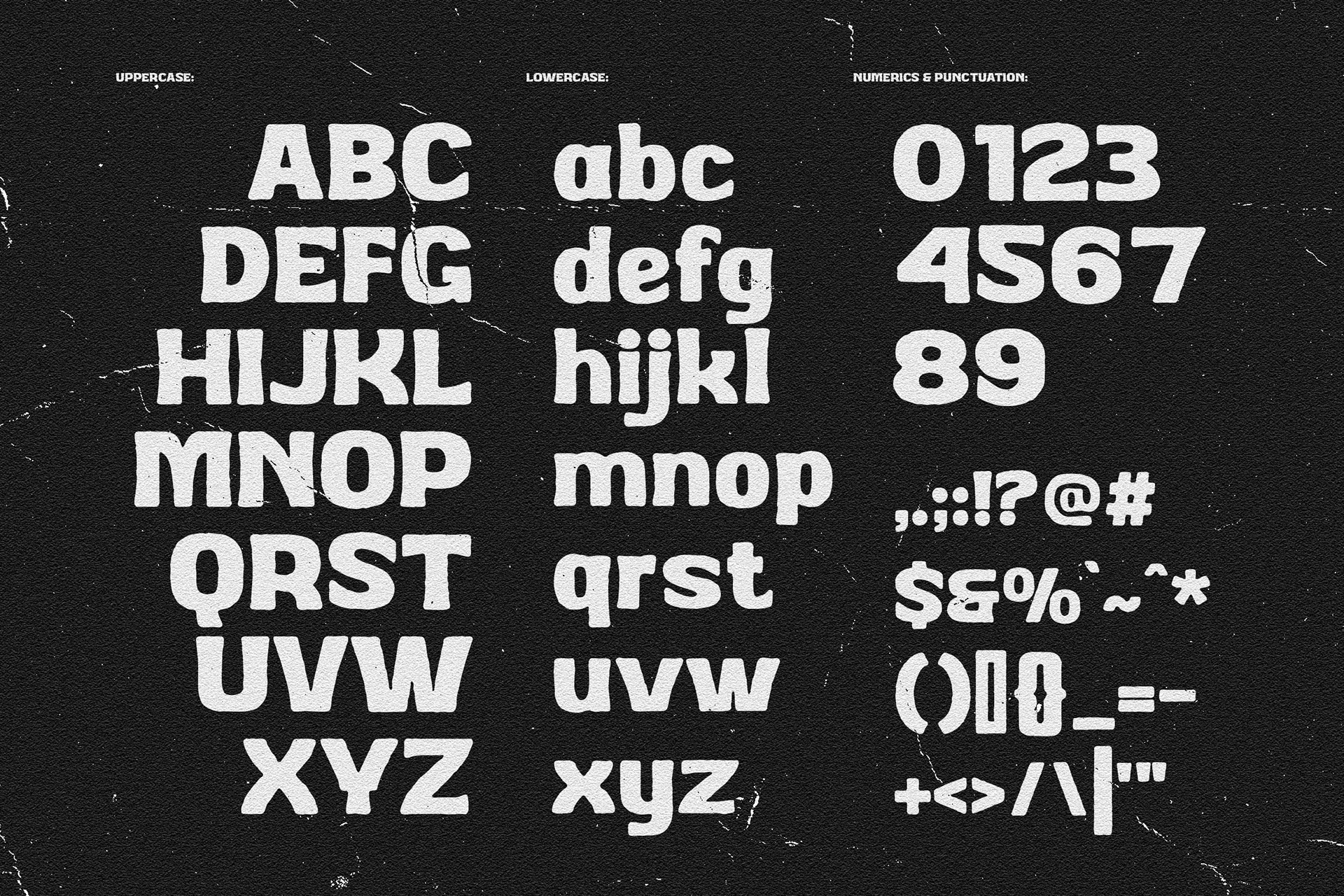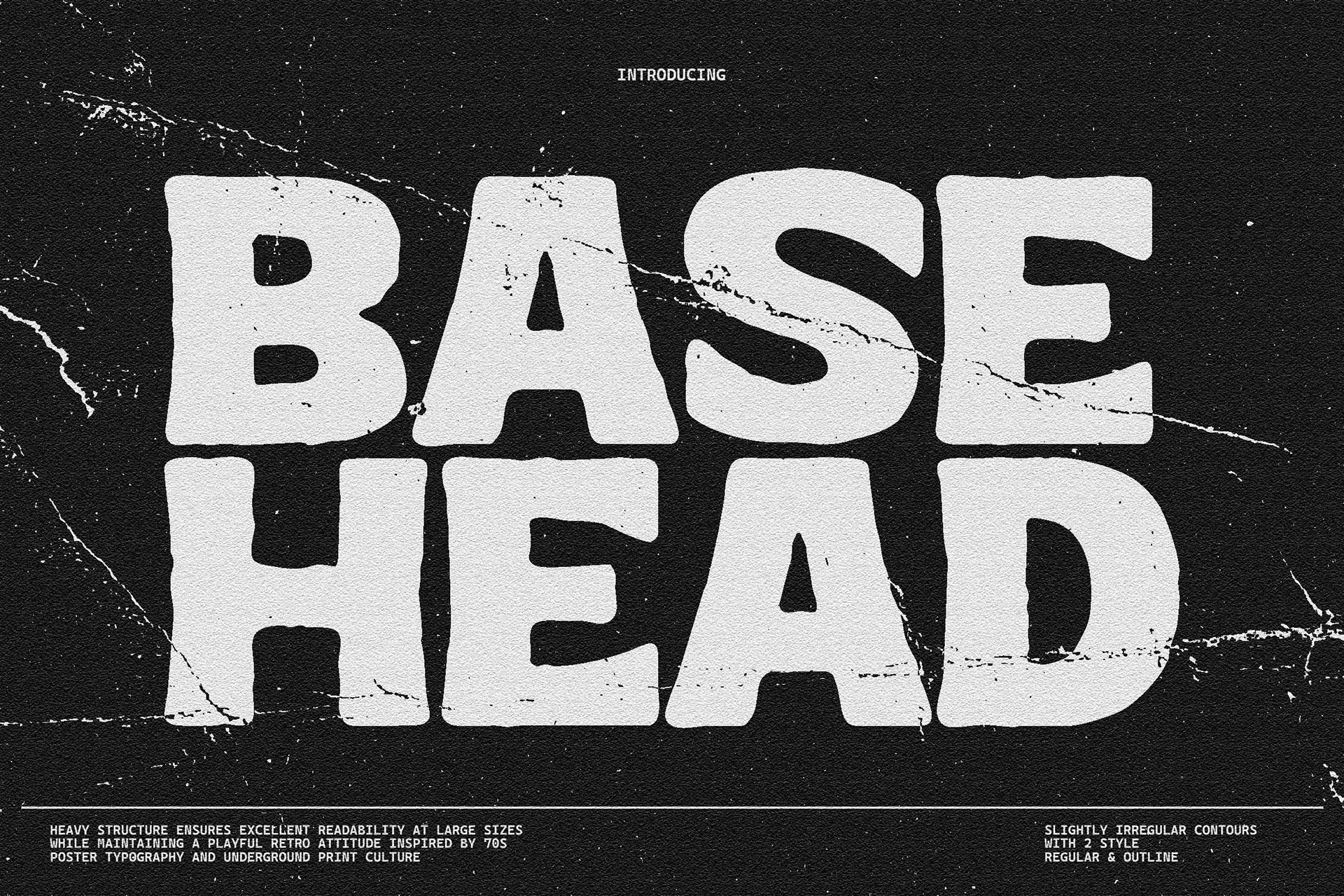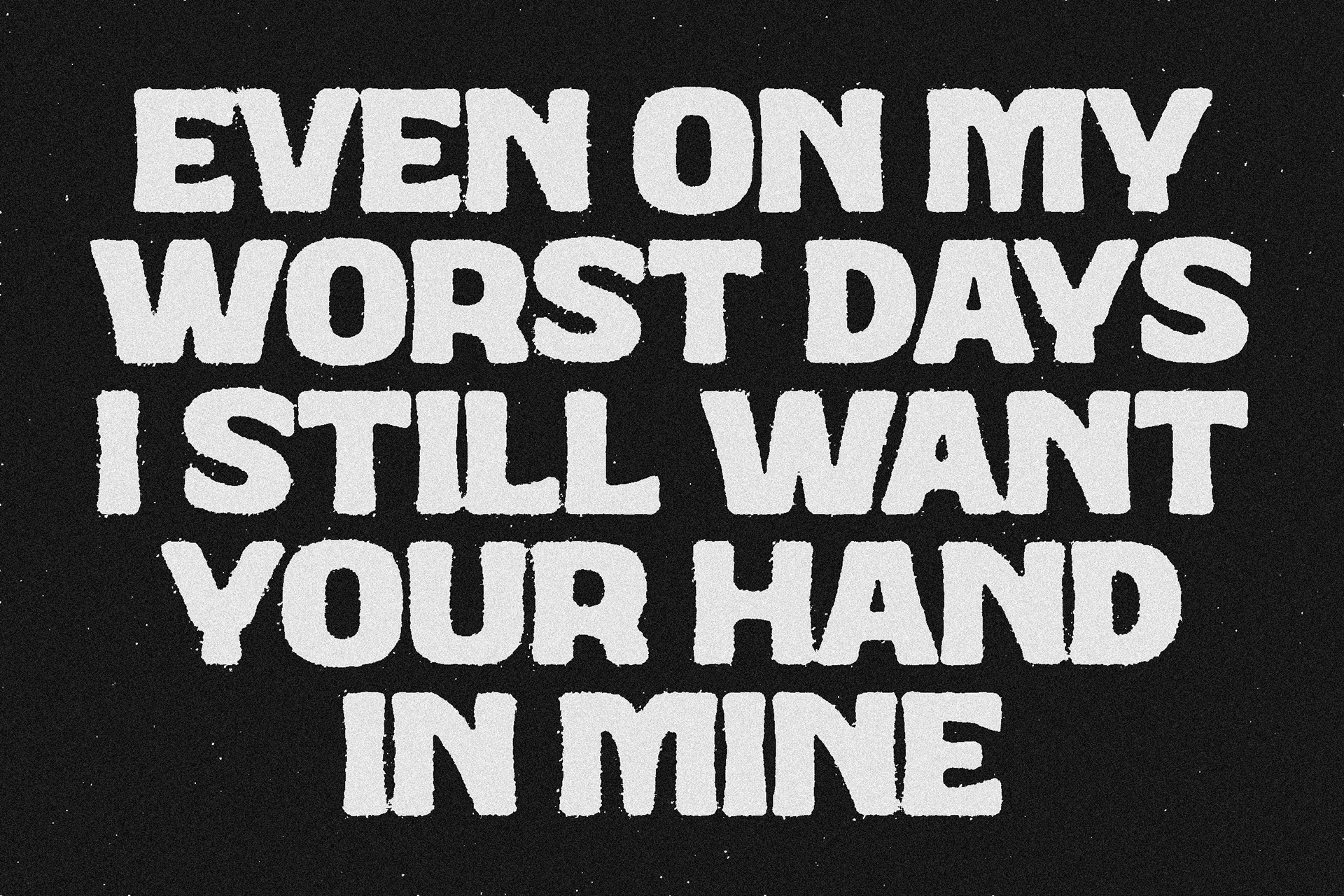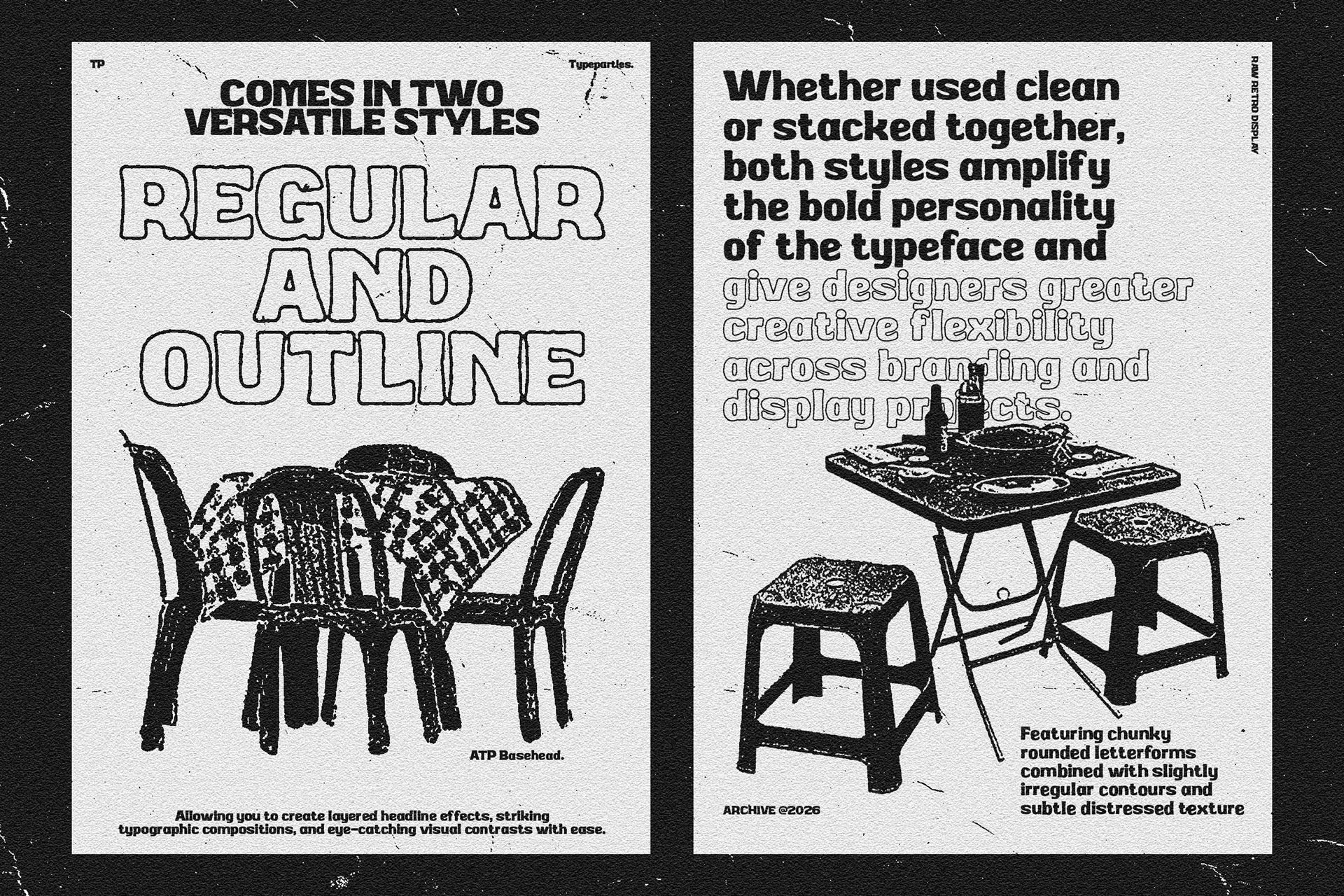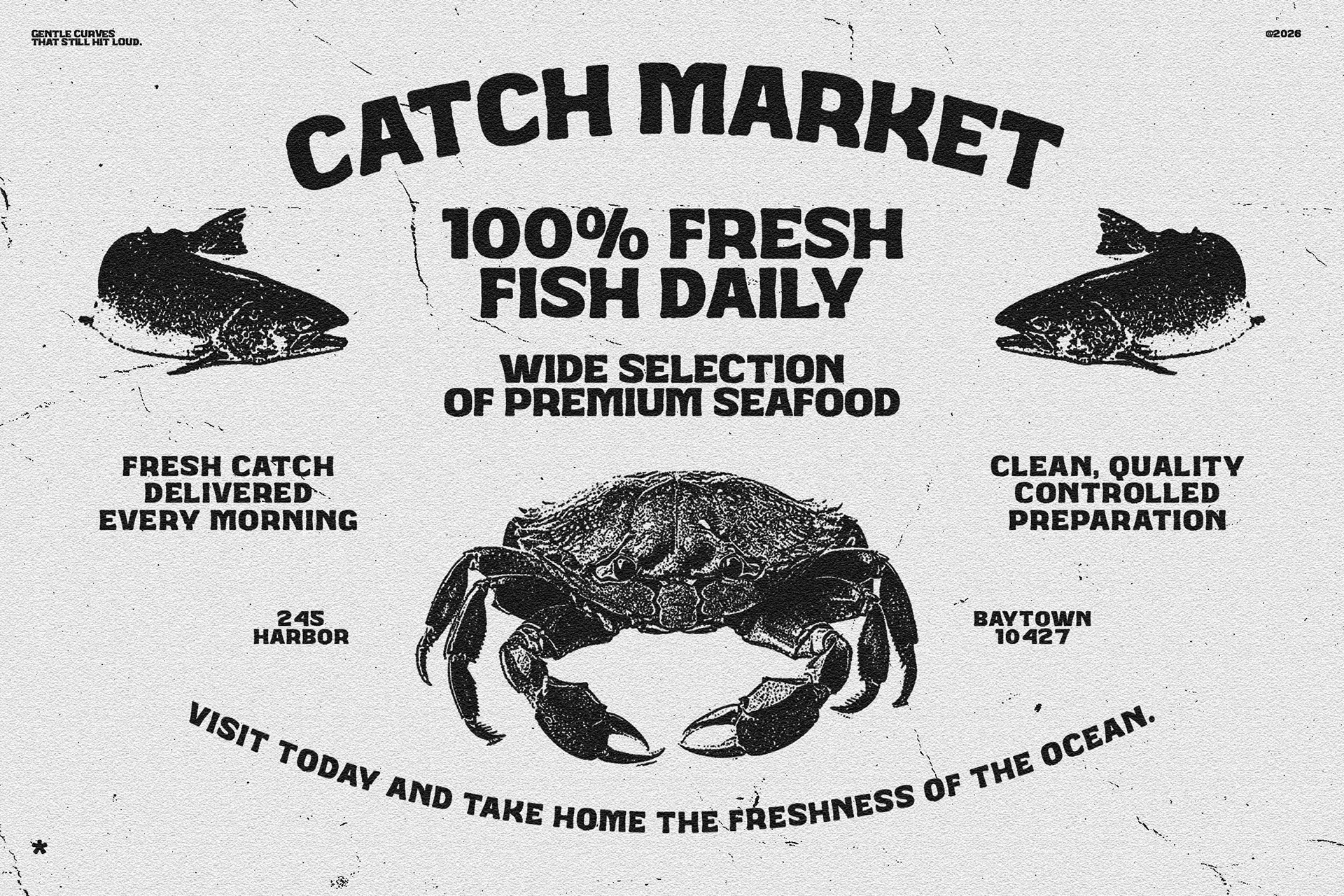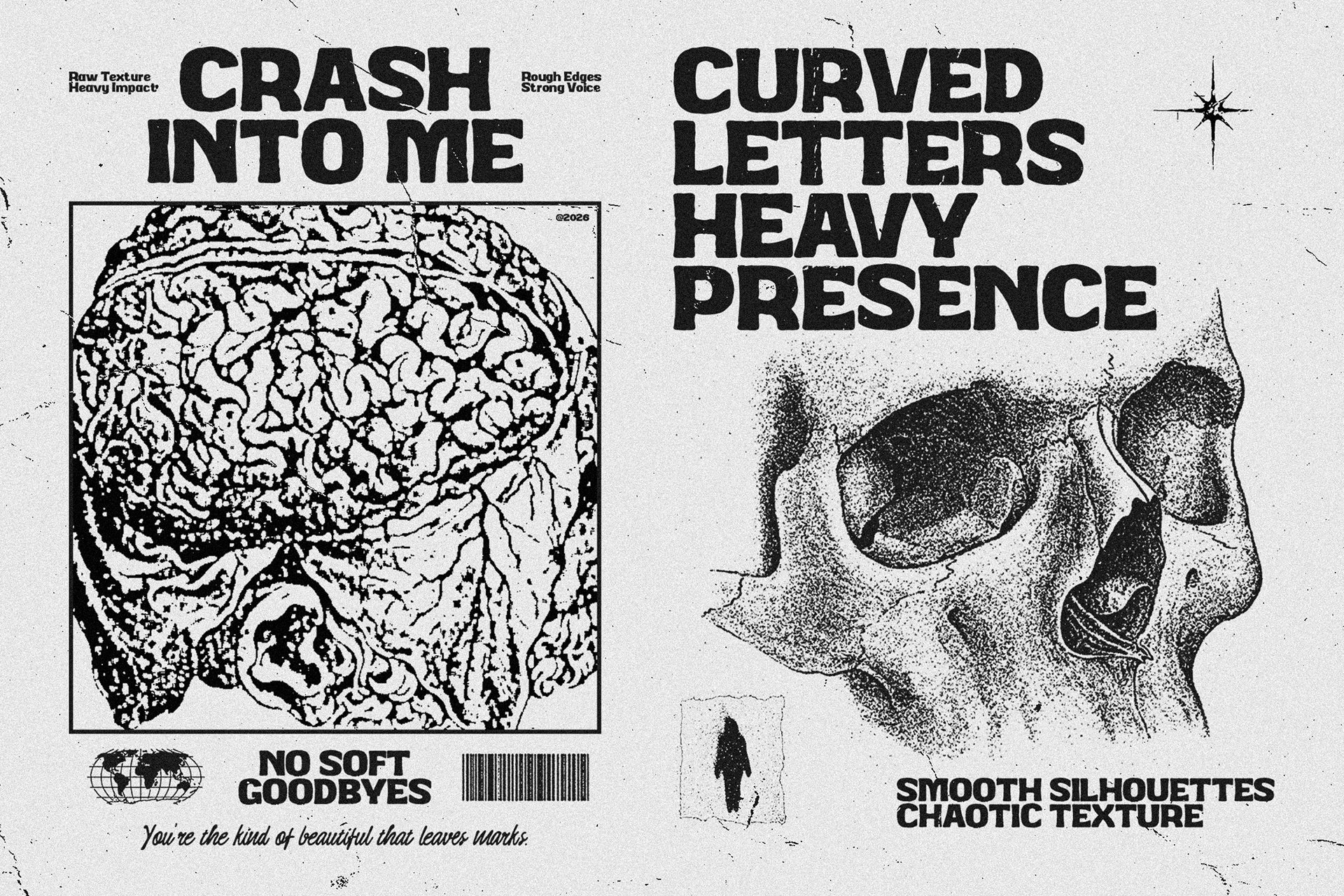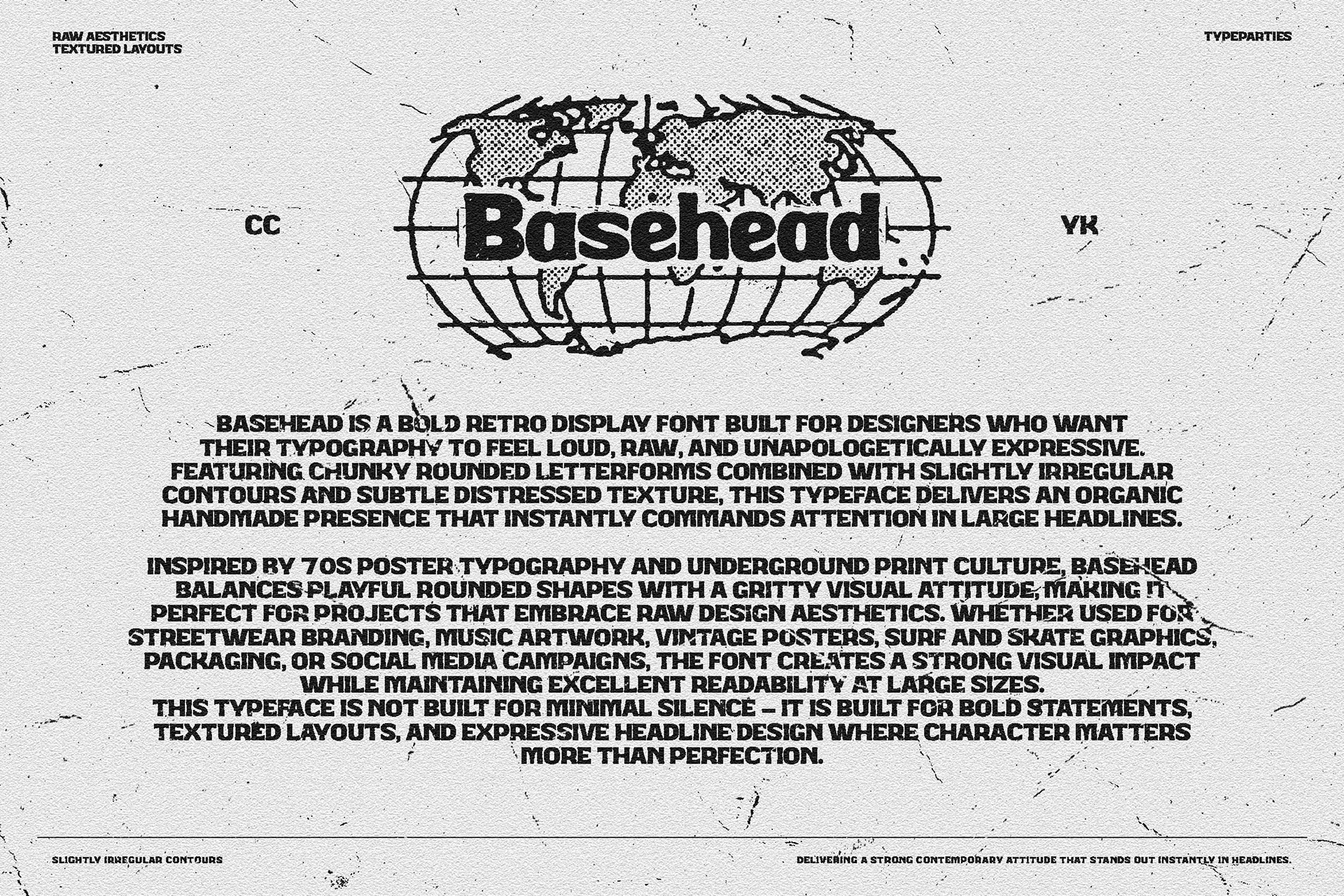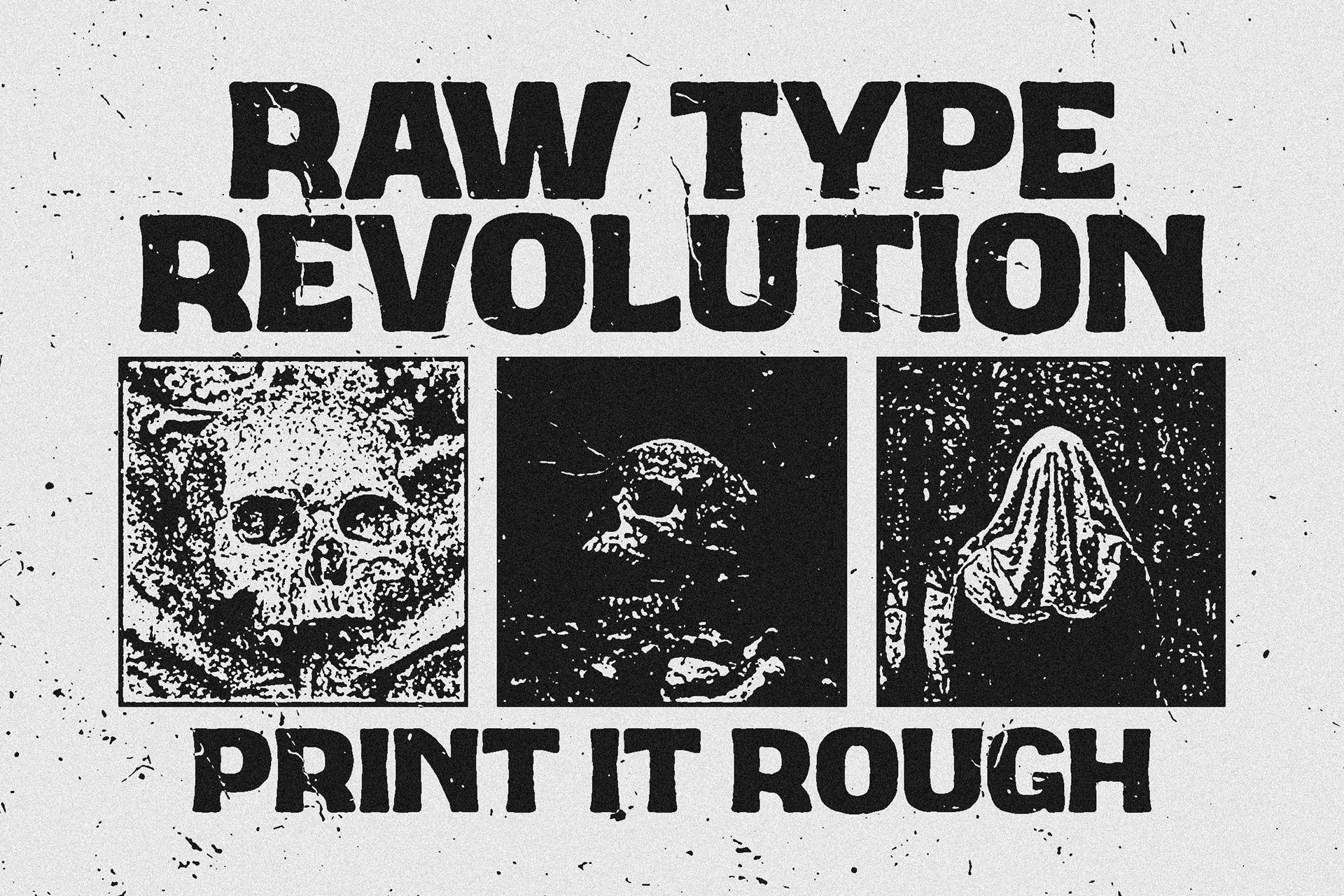
BaseHead – Bold Retro Display font
Bold retro display font designed to dominate headlines with strong vintage character and modern street-ready energy. Built with chunky, organic letterforms and slightly irregular contours, this typeface delivers an authentic handcrafted feel that stands out. Its heavy structure ensures excellent readability at large sizes while maintaining a playful retro attitude inspired by 70s poster typography and underground print culture. Base Head works perfectly for designers who want bold visual impact, nostalgic personality, and strong branding presence in a single type solution.